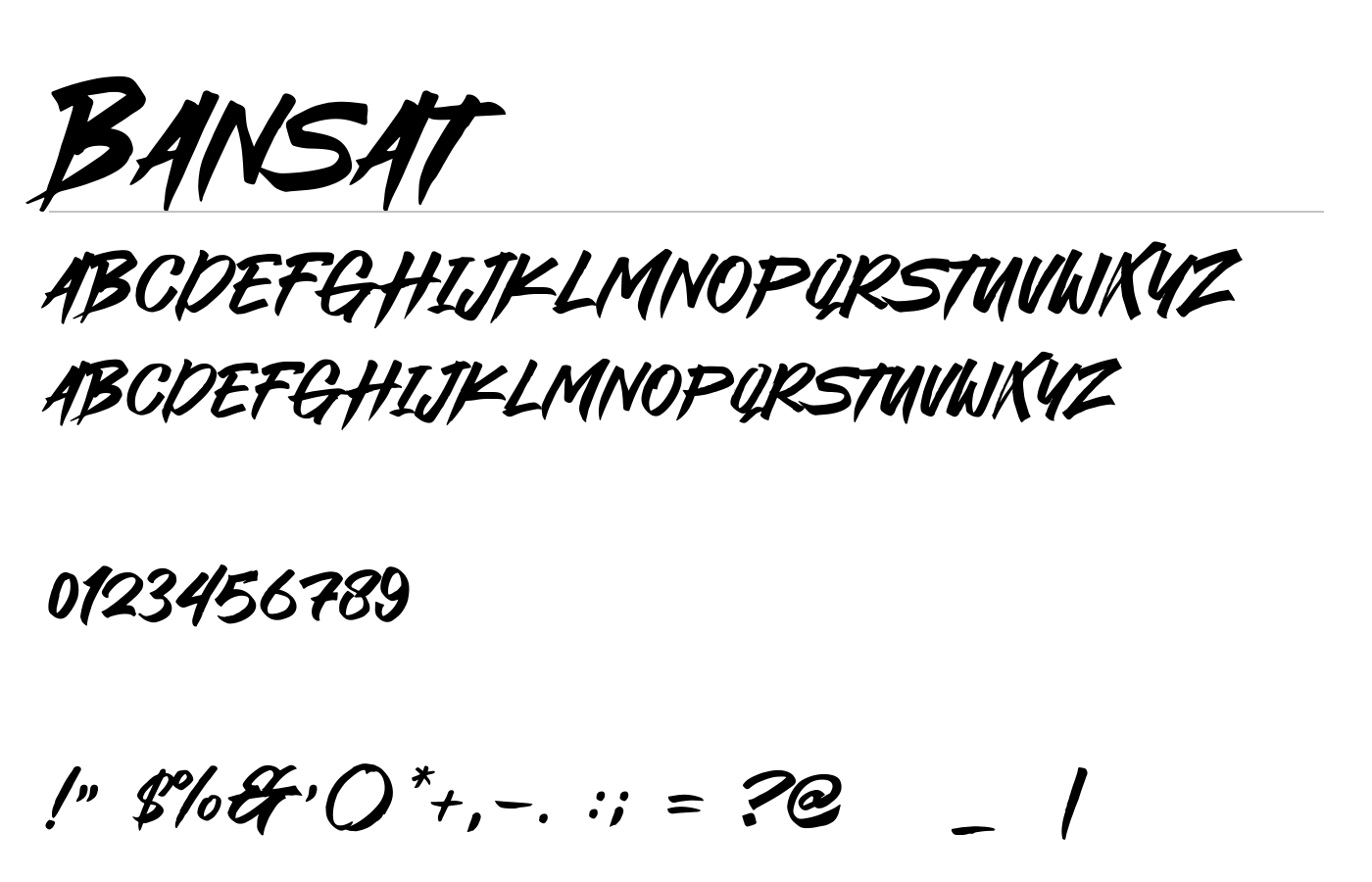
Bansat is a bold, energetic brush script font with sharp, dynamic strokes that give it a vibrant, hand-painted feel. Its slightly condensed letterforms and high contrast between thick and thin lines make it perfect for eye-catching headlines, logos, and designs that want to convey creativity and boldness. This font works well in branding, posters, and any project needing a strong, artistic expression with a modern, informal vibe.
Bansat Font
About Bansat Font